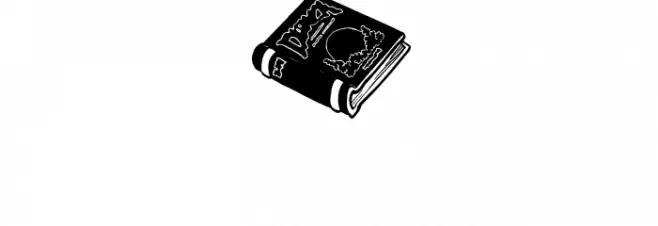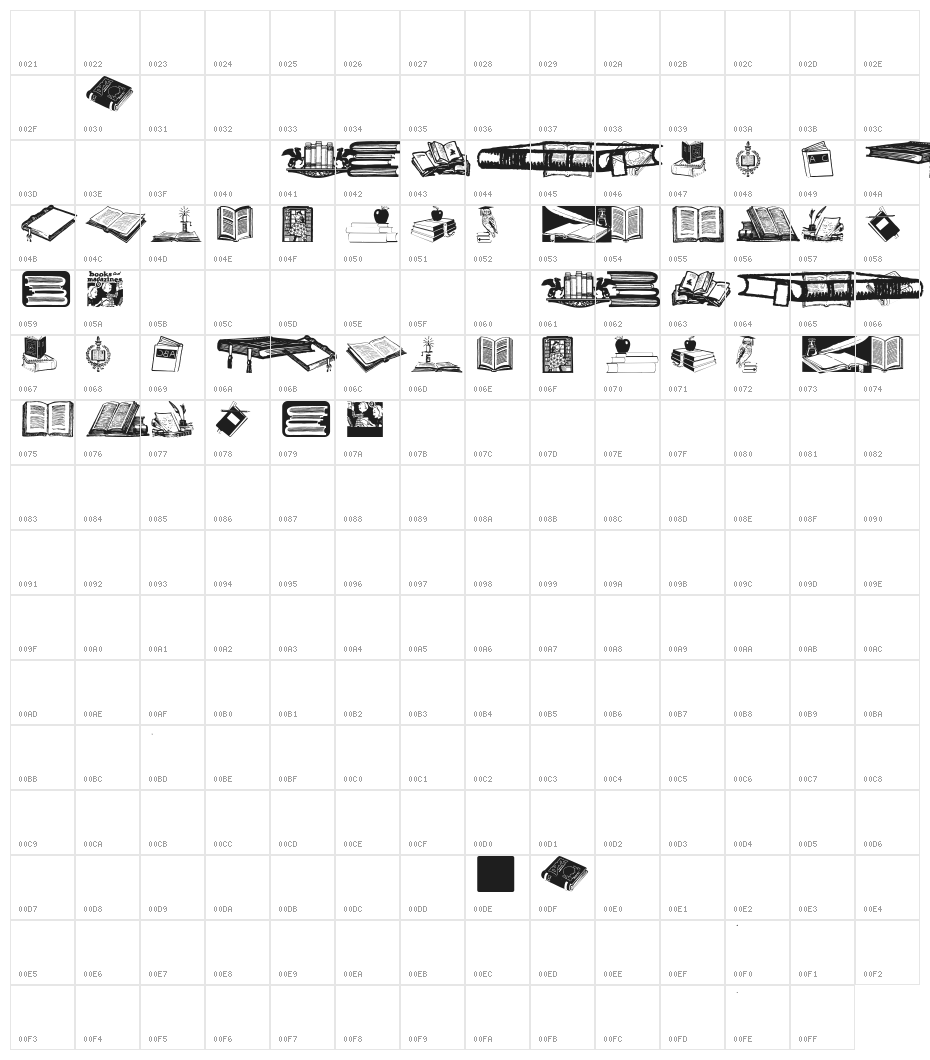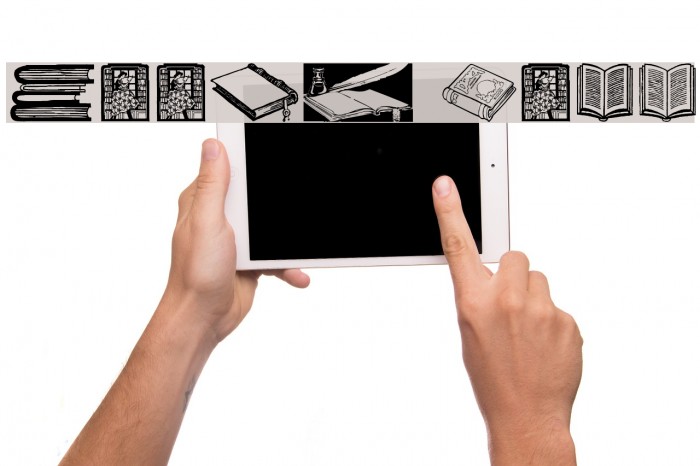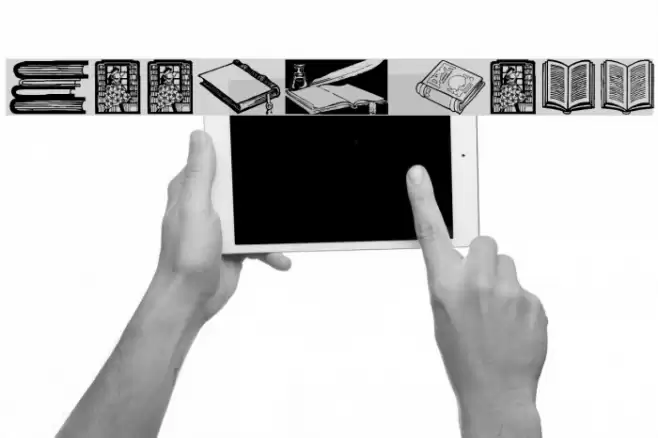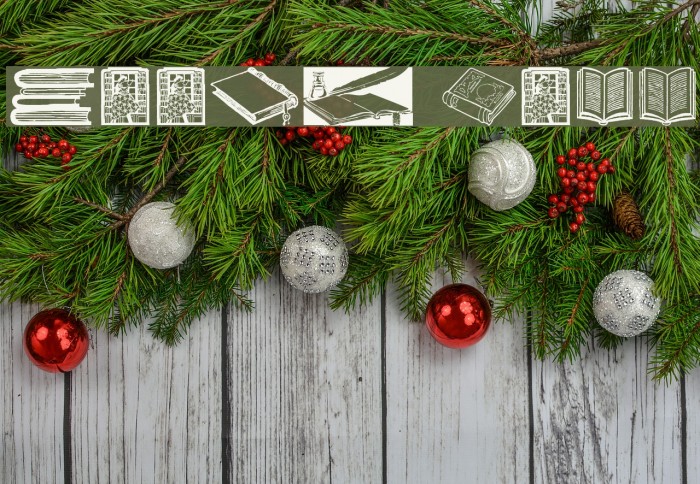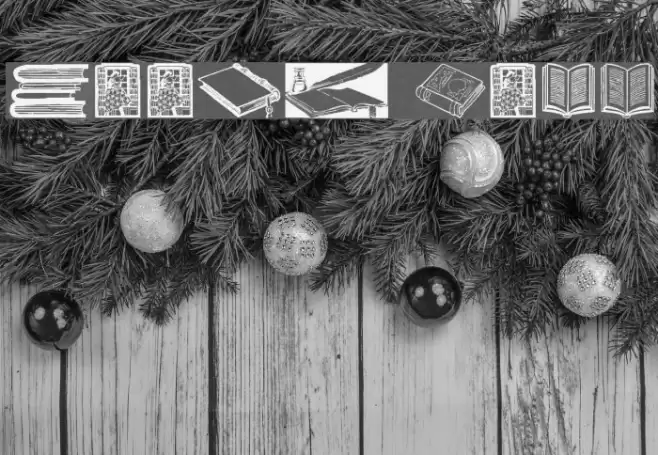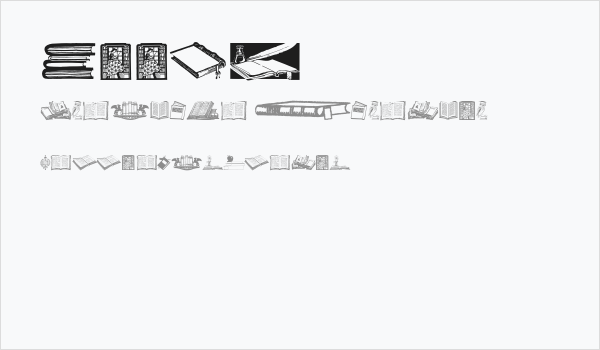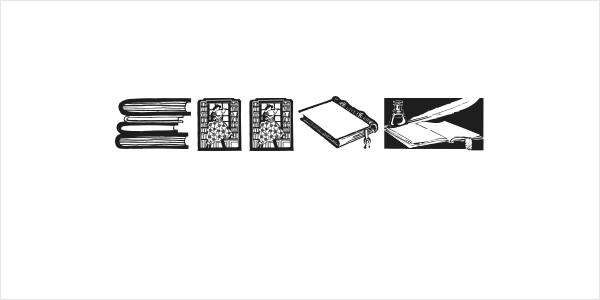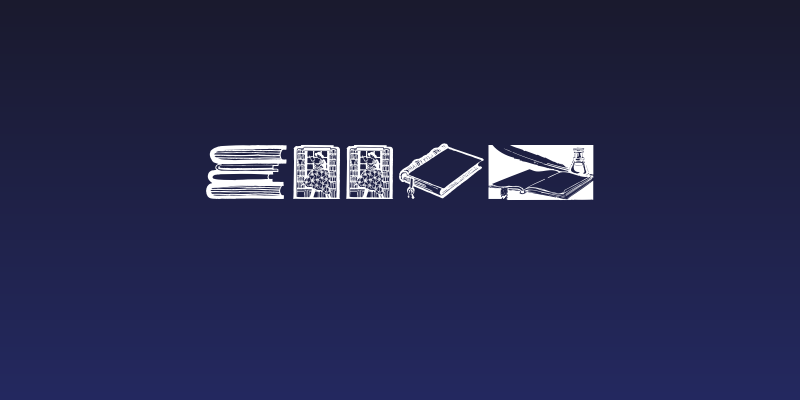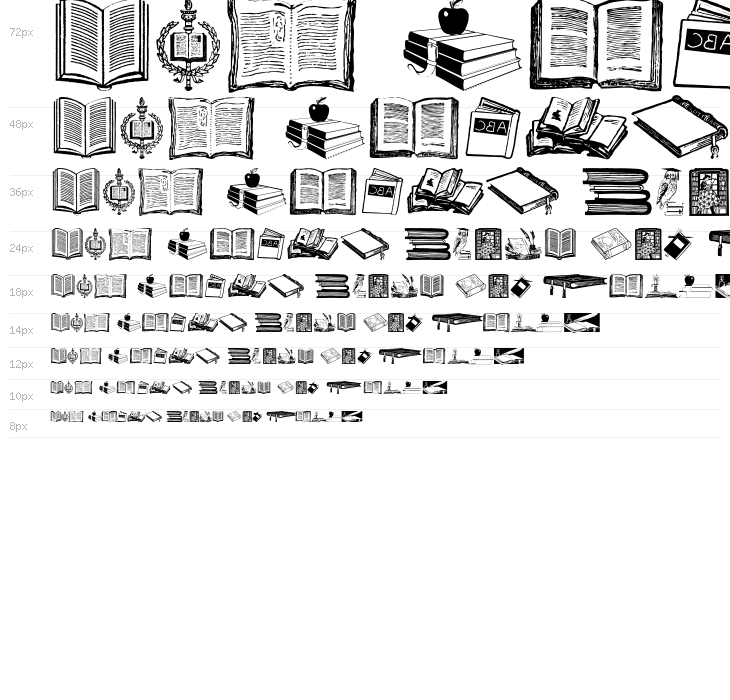
Books Font
Books Description
A decorative dingbat font featuring detailed illustrations of books, stacks of books, open books, writing implements, and related academic or literary objects. Each character is represented by a unique book-themed icon, rendered in a bold, high-contrast black and white style.
| Overall Style | Decorative, Thematic |
| Use Case | Icons, Decorative elements, Themed graphics |
| Proposed Projects | Educational posters, library signage, book fair materials, reading program graphics, themed invitations. |